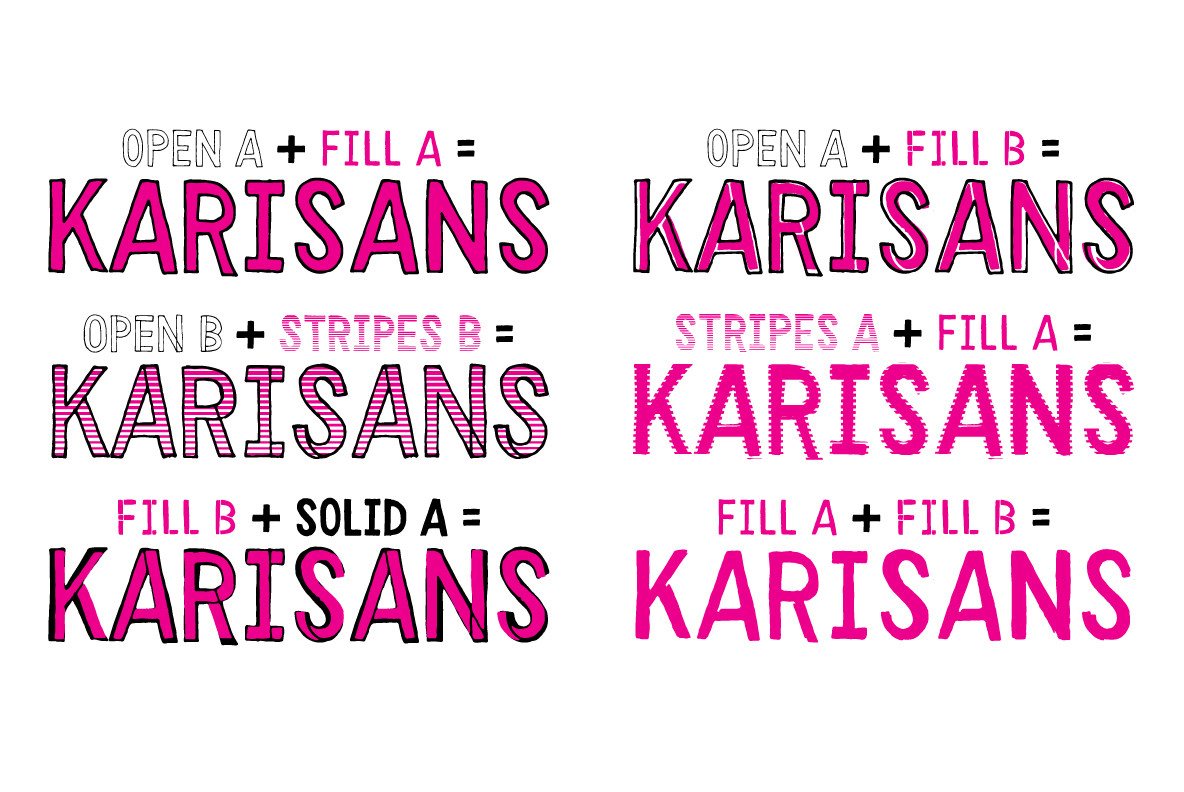
Karisans Font
Karisans is a hand drawn, layerable sans serif font. By layering the various styles differently the user can achieve many different effects.